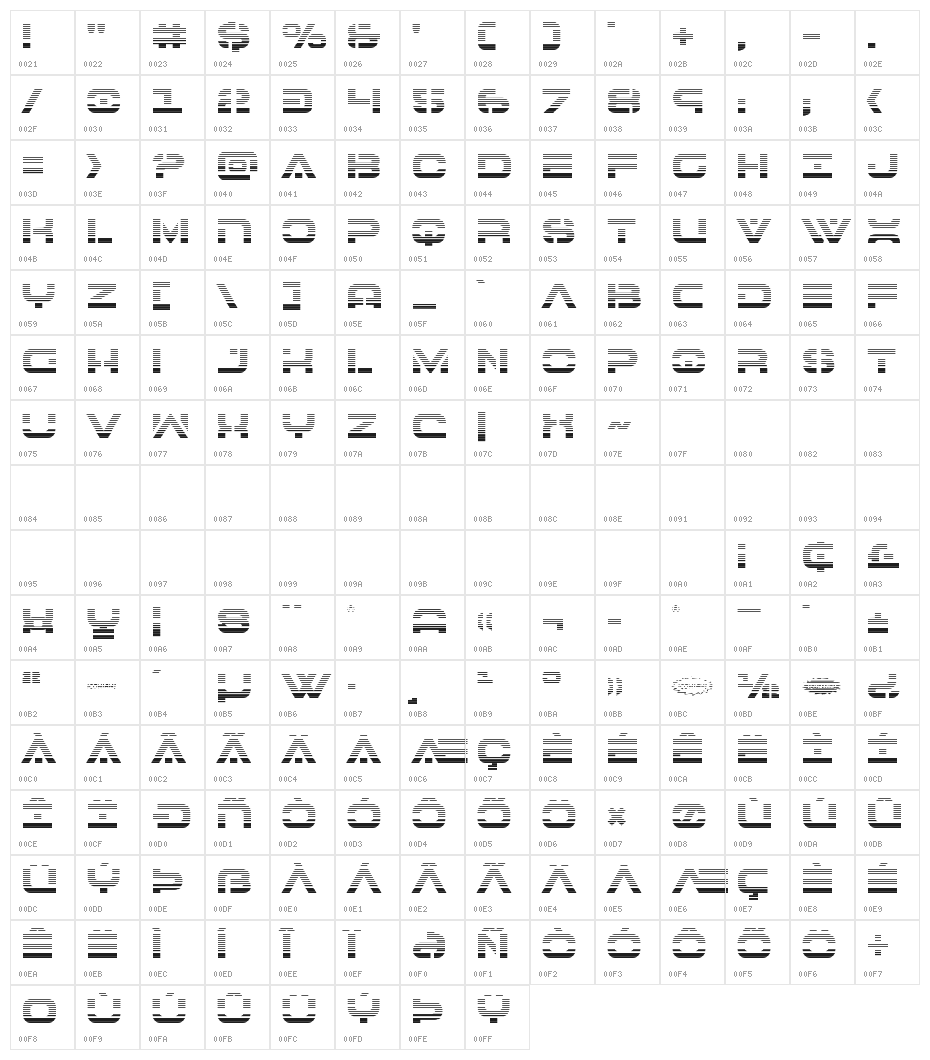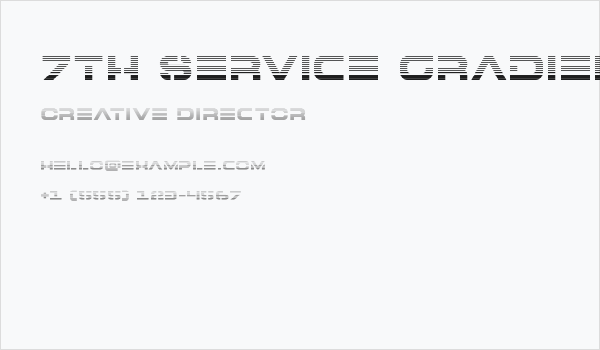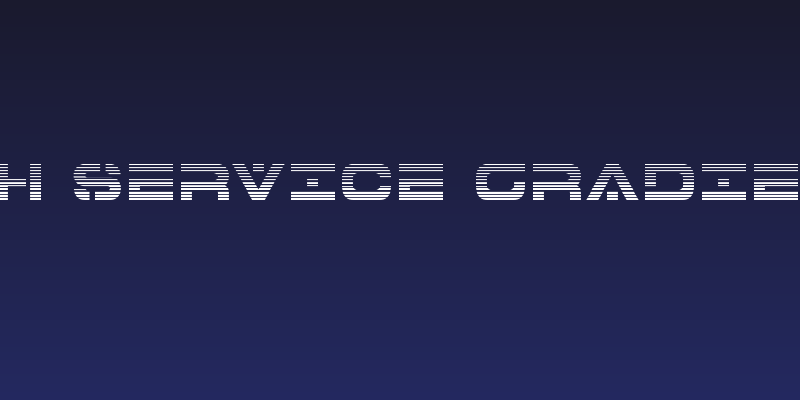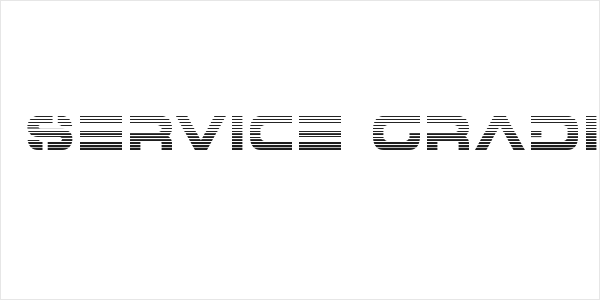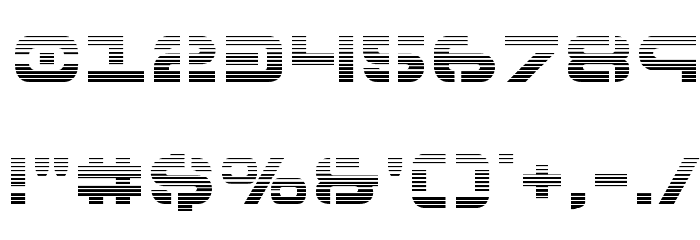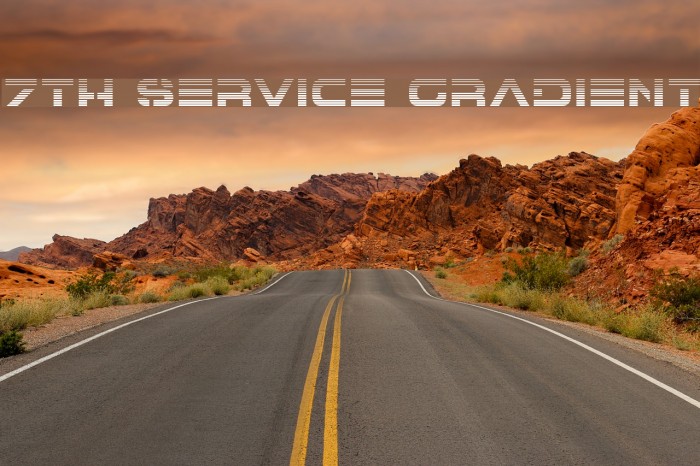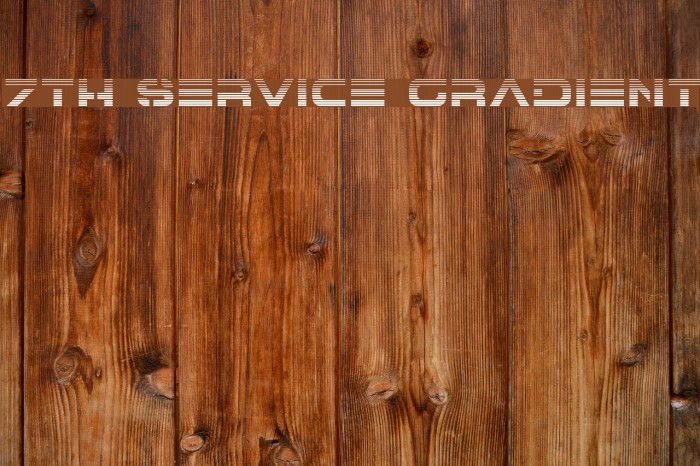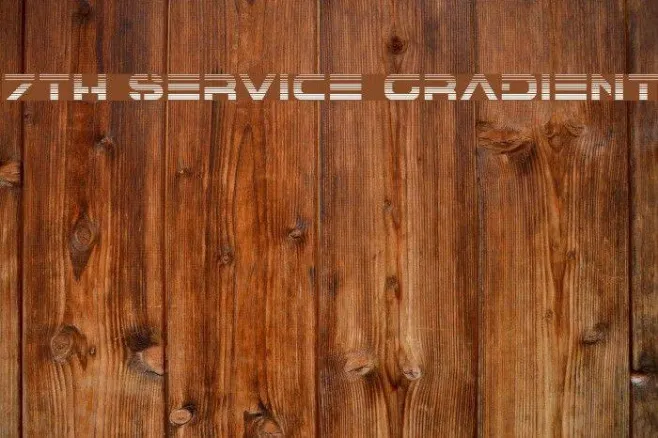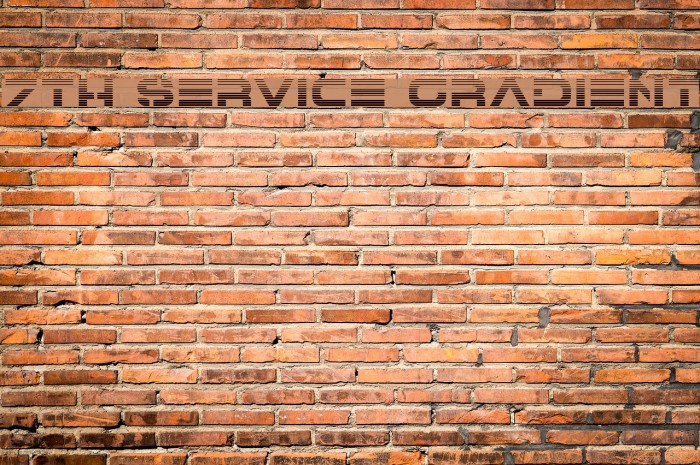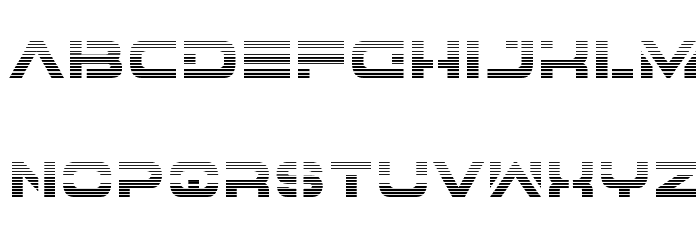
This font features a unique, futuristic design characterized by horizontal lines that create a gradient effect across each character. The letters are bold and geometric, with a strong emphasis on symmetry and alignment. The use of negative space and line breaks gives it a dynamic and modern appearance, making it stand out in digital and print media. The font maintains a consistent width across all characters, providing a uniform look. Its distinct style is suitable for projects that require a contemporary and edgy aesthetic.
| Proposed Projects | Ideal for tech branding, sci-fi movie posters, digital art, and modern advertising campaigns. |